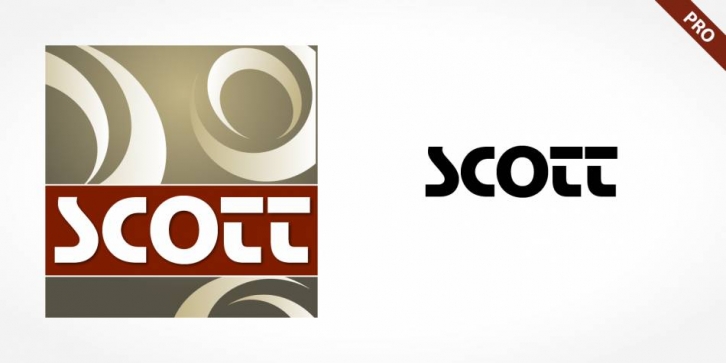
Scott Pro is a display sans and stencil font published by SoftMaker.
Scott Pro is a heavy futuristic sans serif display font. Scott Pro’s forms are vaguely stencil-like, and some of them only read as letters when used in combination with each other. Nevertheless, Scott Pro has a real computer-technology feel to its design. It should be used exclusively for headlines or logo work.